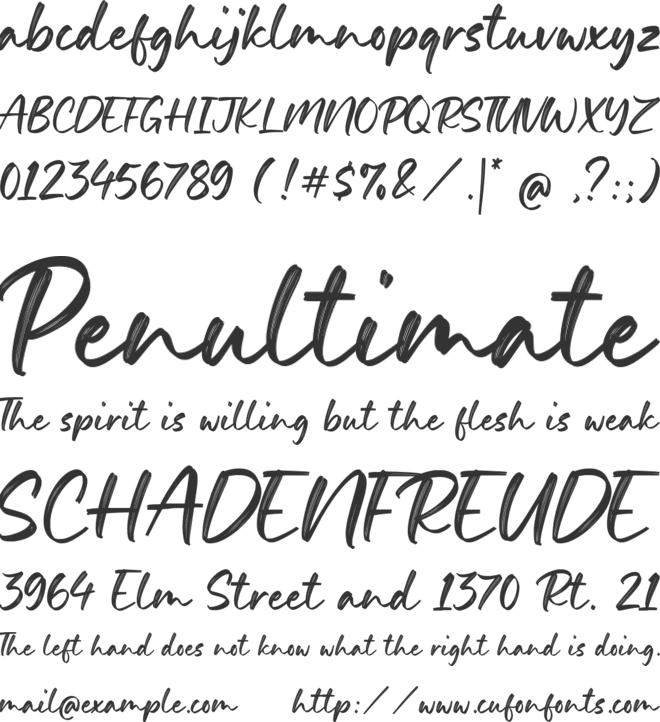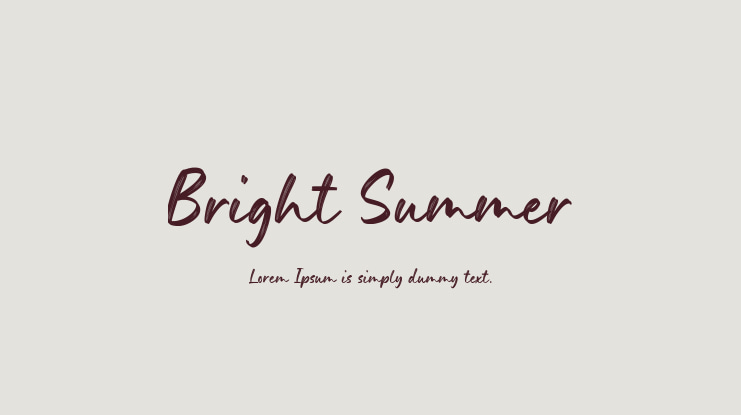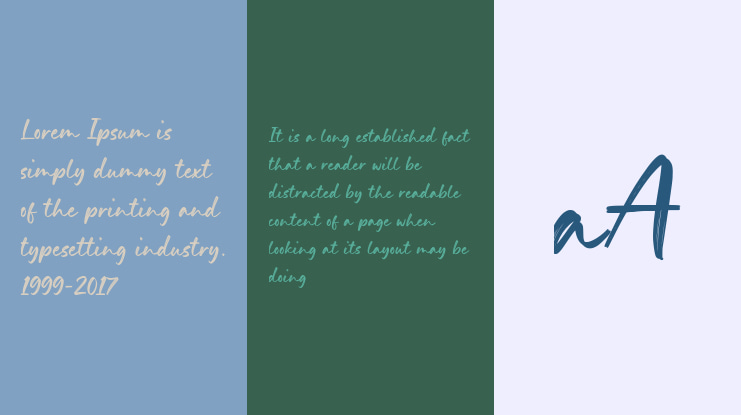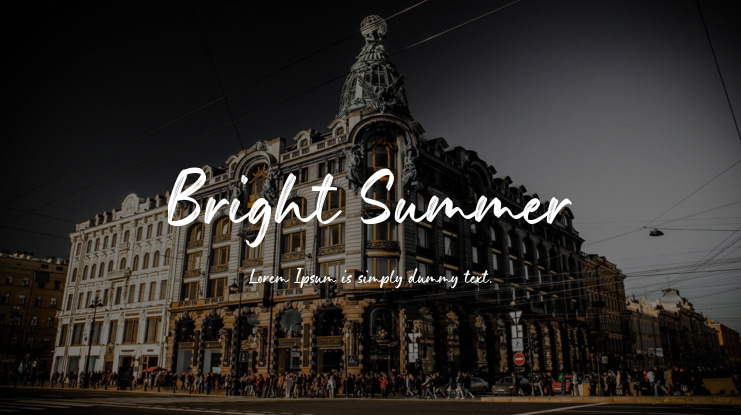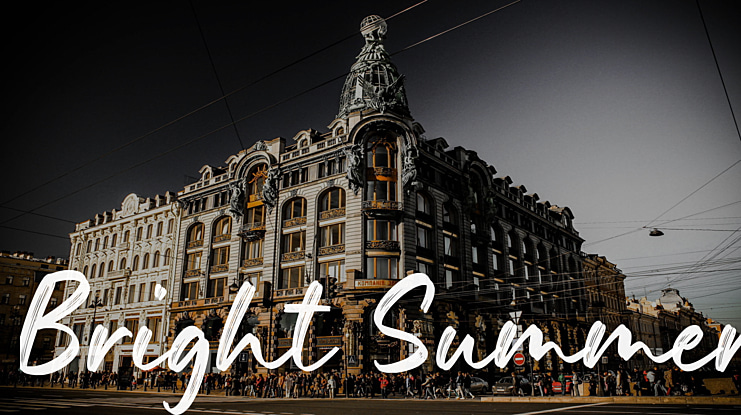
Bright Summer Font
Introduced by Timur type
Proudly Present Bright Summer
Bright Summer Handwritten font that is modern and fresh, and will bring a warm and inviting feel to your business. Take advantage of the fonts and experience the magic for yourself.
Bright Summer is perfect for product packaging, branding project, megeenazine, social media, wedding, or just used to express words above the background.
Bright Summer Font Features premium :
-Full Set of standard alphabet and punctuation